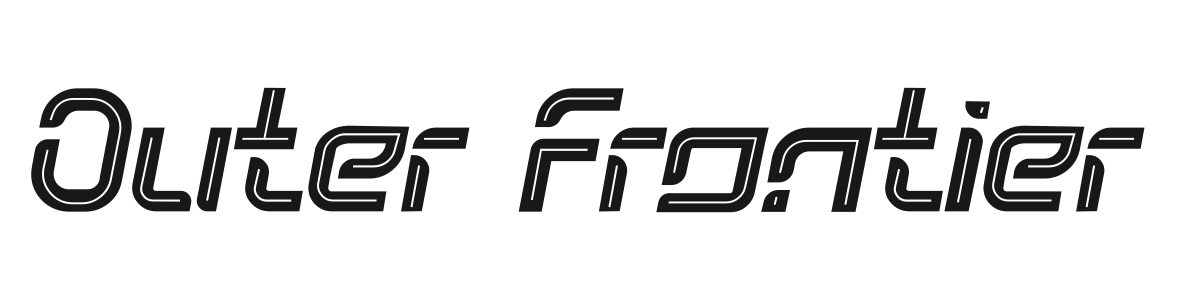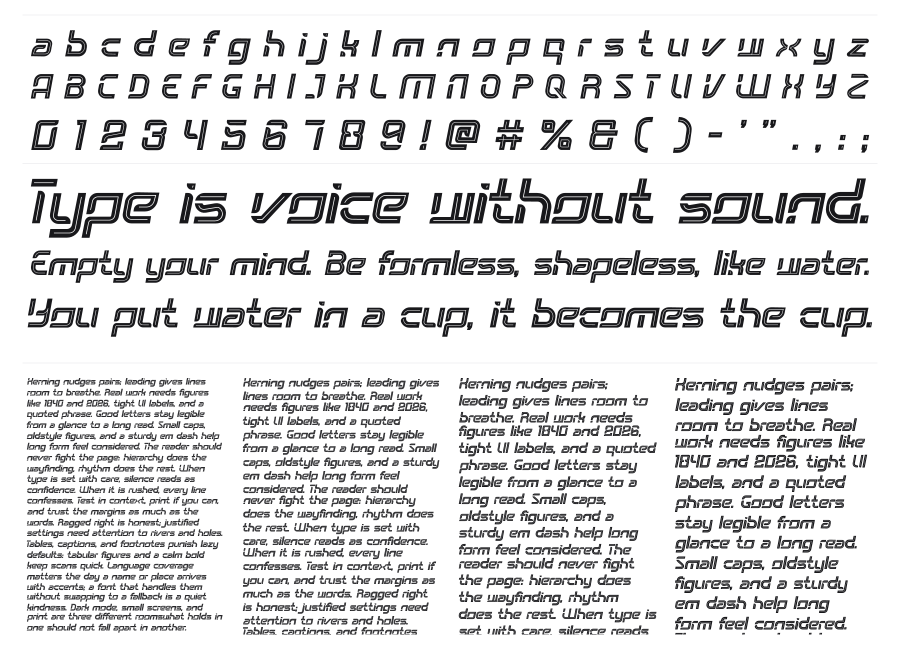
Outer Frontier
by Tokopress
Outer Frontier is a bold italic display font with a built-in inline outline effect that wraps every character in a thin double-stroke shell. The rounded corners and forward slant give it a strong sense of speed and futuristic energy. It lands naturally in gaming titles, sci-fi branding, sports graphics, and any context that needs headline presence with a technological edge.